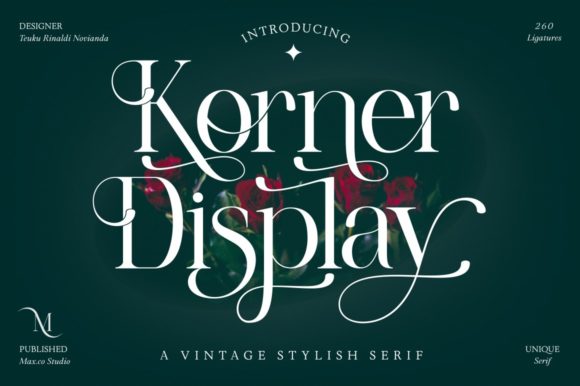
Unleash the Timeless Beauty of Your Wedding Invitations with Korner Font: The Epitome of Elegance and Sophistication
In the realm of wedding stationery, the choice of font holds immense power in setting the tone for your special day. Allow us to introduce you to Korner Font, a vintage serif masterpiece that will transform your wedding invitations into breathtaking works of art.
Crafted by the talented artisans at Max.co Studio, Korner Font exudes a timeless charm that will leave a lasting impression on your guests. Its meticulously designed characters, adorned with delicate serifs and graceful curves, evoke a sense of elegance and sophistication that is unparalleled.
More than just a font, Korner is an artistic expression that captures the essence of your love story. Its intricate details and subtle nuances add depth and personality to your wedding invitations, making them cherished keepsakes that will be treasured for years to come.
With Korner Font, you'll discover a world of endless creative possibilities. Unleash your inner artist and explore a myriad of styles, from classic and traditional to modern and whimsical. The font's versatility extends to a wide range of applications, including save-the-dates, menus, programs, and signage.
Make your wedding day truly unforgettable with Korner Font. Let its timeless beauty weave its magic and create an invitation suite that reflects the love, joy, and commitment you share with your soulmate.